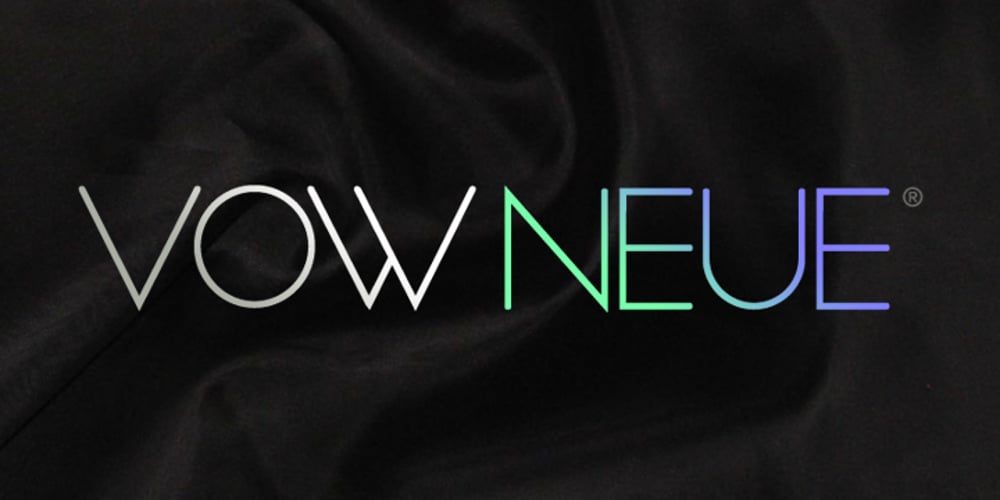
Vow Neue Font Family was designed by Alex Haigh, Dawn Lewandowski and published by HyperFluro. Vow Neue contains 1 styles and family package options. As glamorous as its name would suggest, Vow Neue is the new fashion model on the typeface scene. Vow Neue loves excess without losing style, containing itself in strict forms that belie a boundless desire. Sharp edges lead into enticing curves in all the right places, making this a font that draws the eye and keeps up interest.